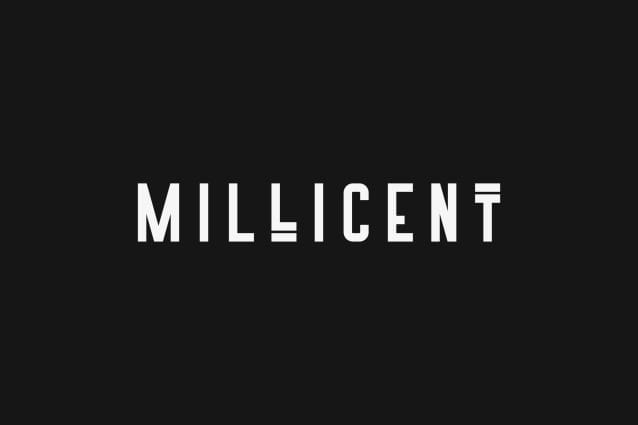
Millicent Display Font
Millicent Display Font is an elegant and versatile display font that will make your typography truly unique! It will enchant every logo, branding, headline, or plain text!